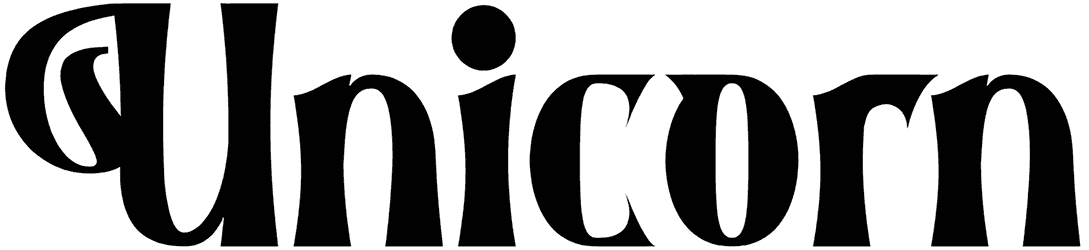
Unicorn Font
Unicorn is a bold retro font that conveys a classical feel to your work. It supports all characters, even multilingual ones, and has a fun and playful appearance. Most letters are ornamented with curly tails, which makes it more amusing. It is a perfect choice for stationery labels, apparel printing, animation posters, book covers, and branding projects.